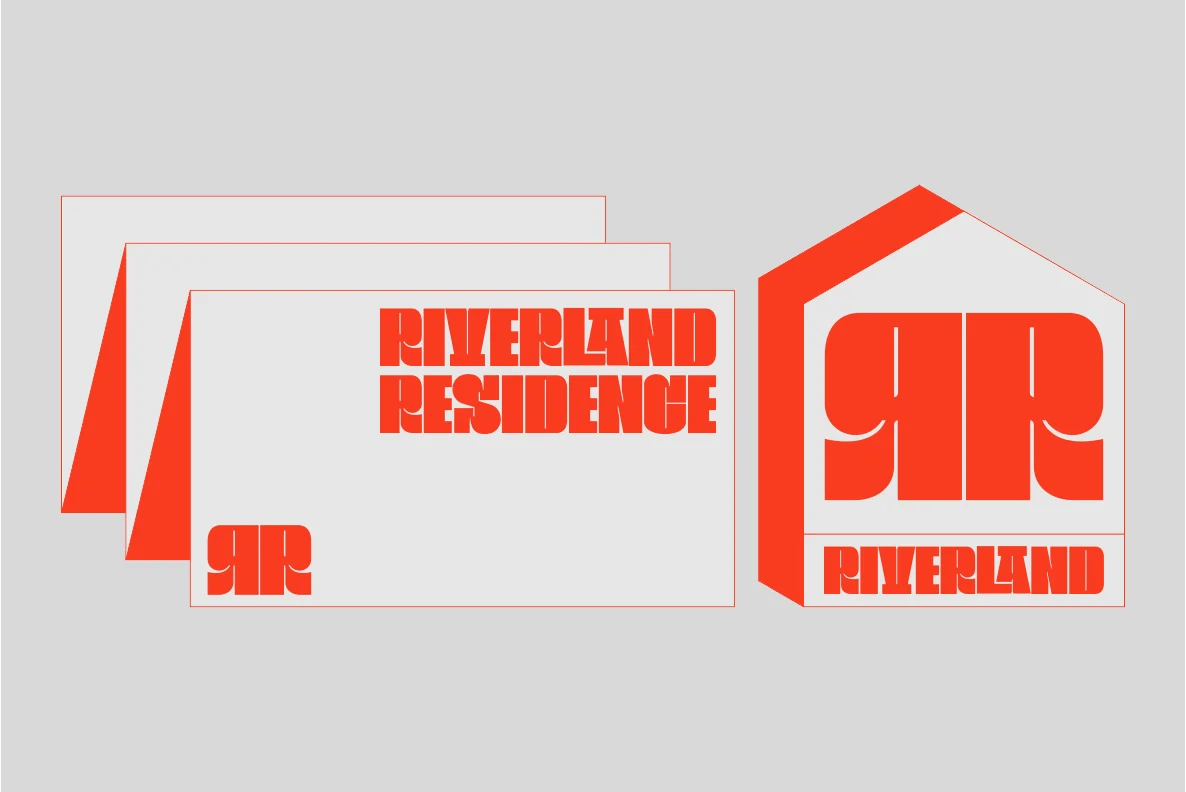
Bogam is a new free Urban sans serif font. Bogam was inspired by Urban lifestyle, Music and Fashion needs. Bogam come with upper & lowercase characters, numbers & punctuation.Â